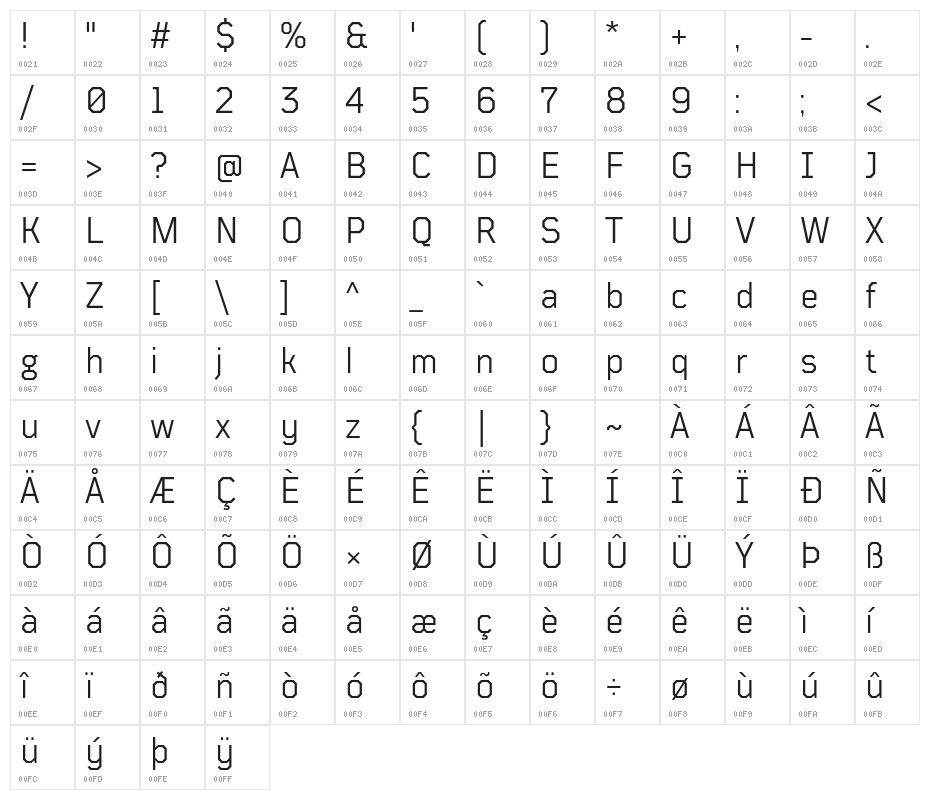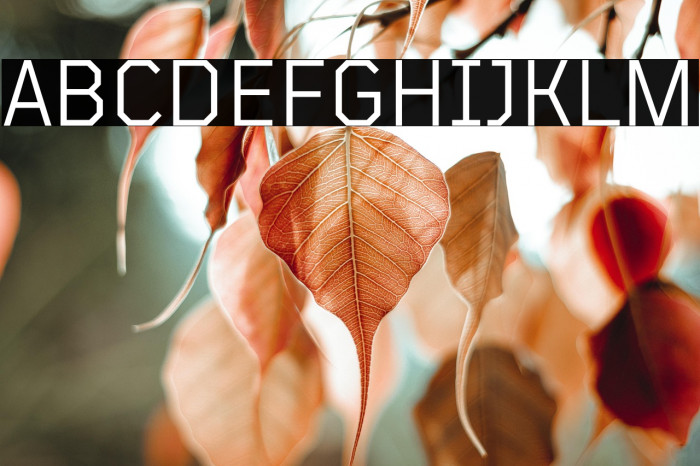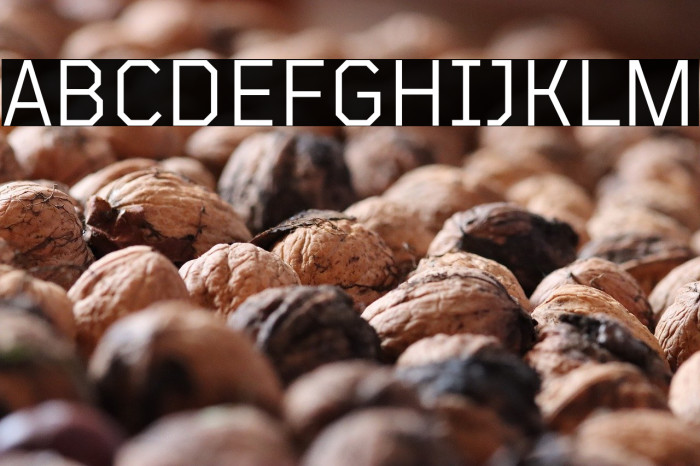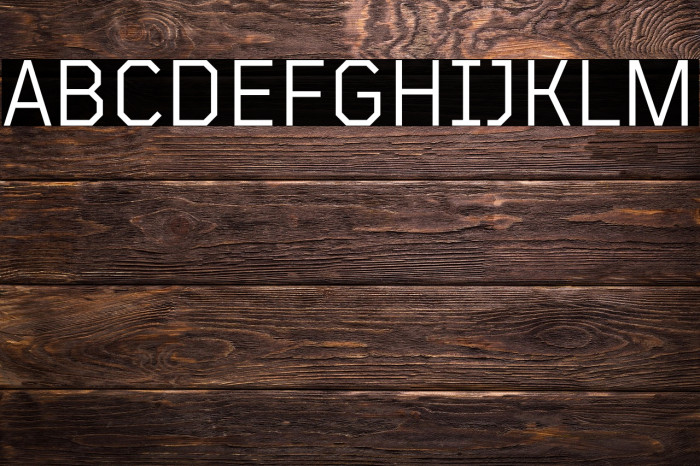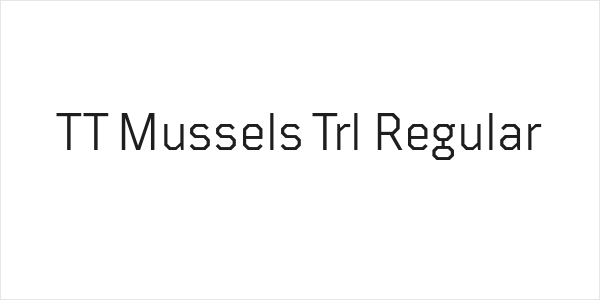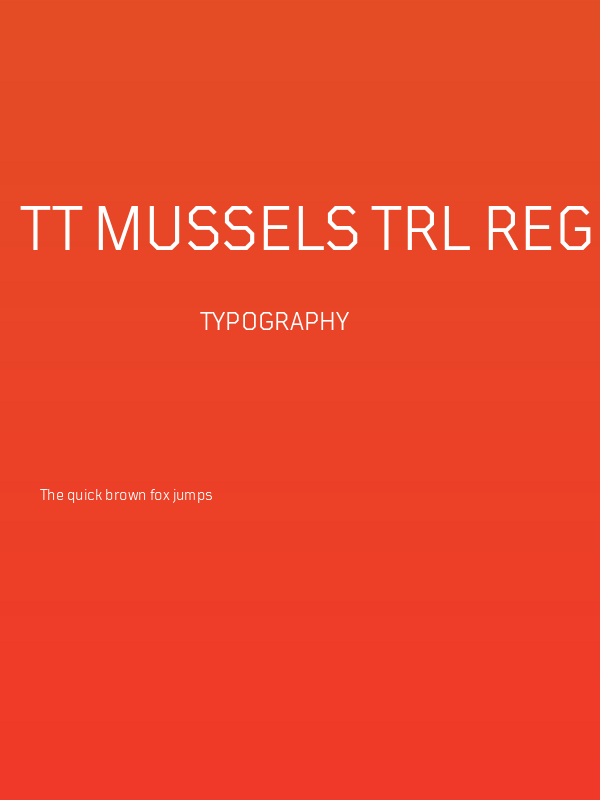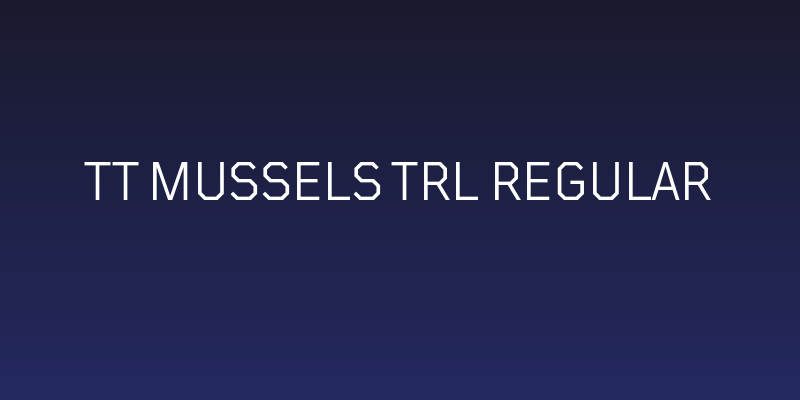
TT Mussels Trl Regular Font
TT Mussels Trl Regular Description
This font exhibits a modern and geometric style with a clean, structured appearance. The characters are formed with straight lines and sharp angles, giving it a technical and futuristic feel. The uppercase and lowercase letters maintain a consistent height, contributing to a uniform look. The numerals and special characters follow the same geometric design, ensuring a cohesive appearance across all glyphs. The font's simplicity and clarity make it suitable for various design applications where readability and a contemporary aesthetic are desired.
| Use Case | Headlines, Logos, Digital interfaces |
| Proposed Projects | Ideal for technology branding, digital interfaces, modern posters, and architectural designs. |